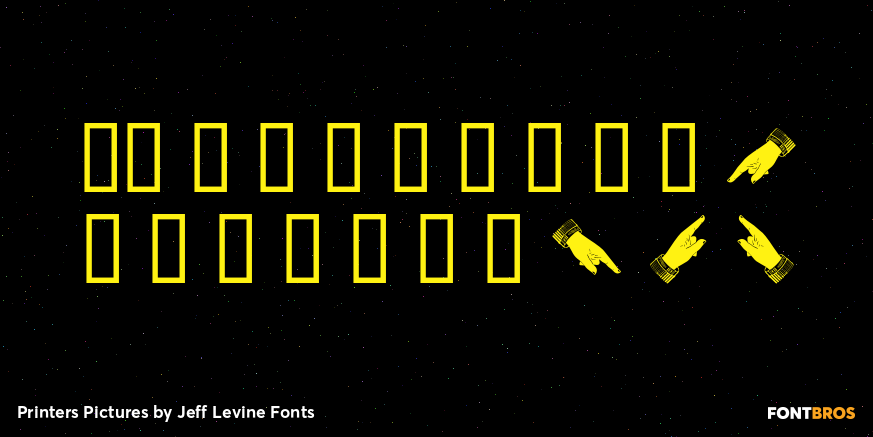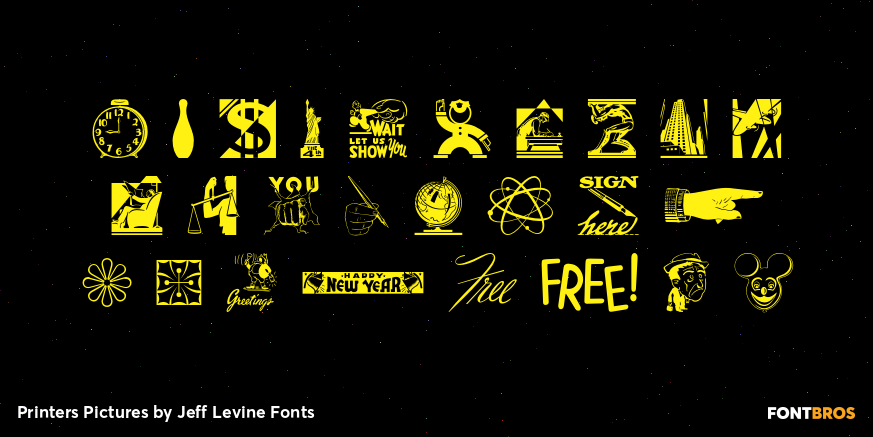
Printers Pictures
Printers Pictures JNL is another volume of vintage letterpress stock cuts, cartoons, embellishments and what-nots for those who enjoy these charming illustrations.
Printers Pictures JNL Regular by Jeff Levine Fonts